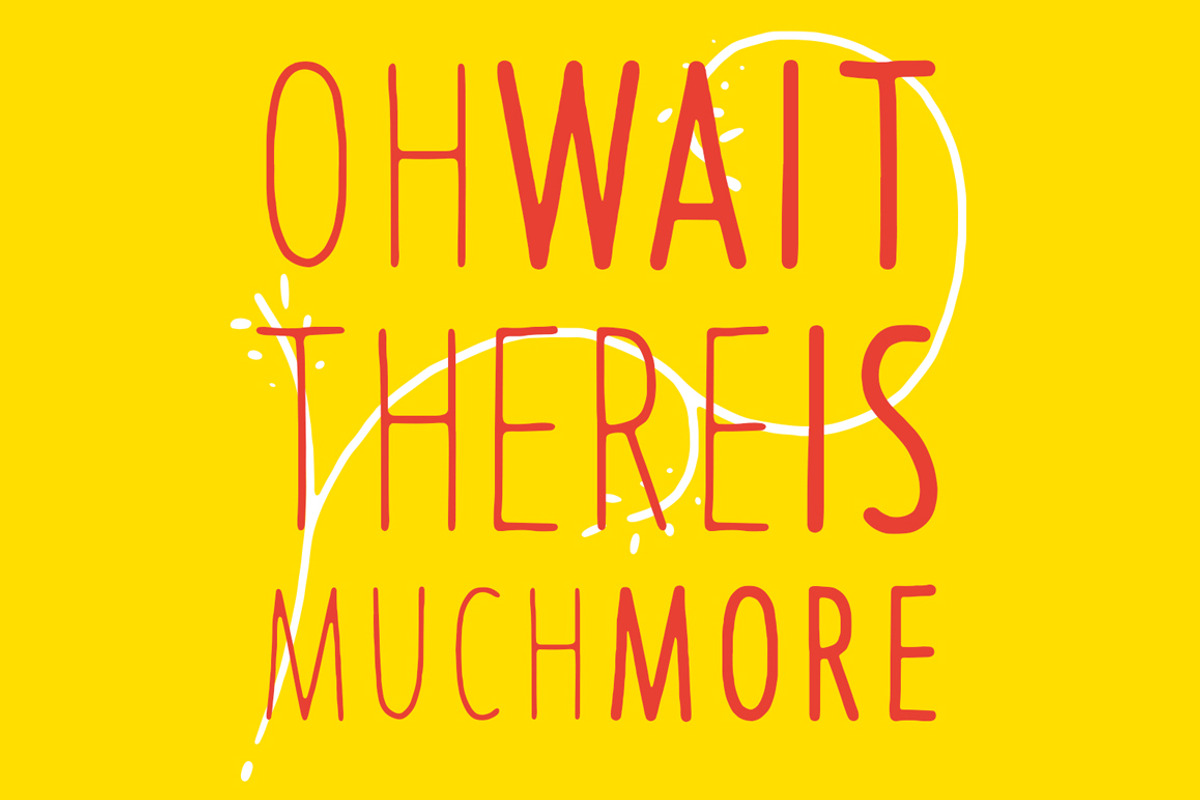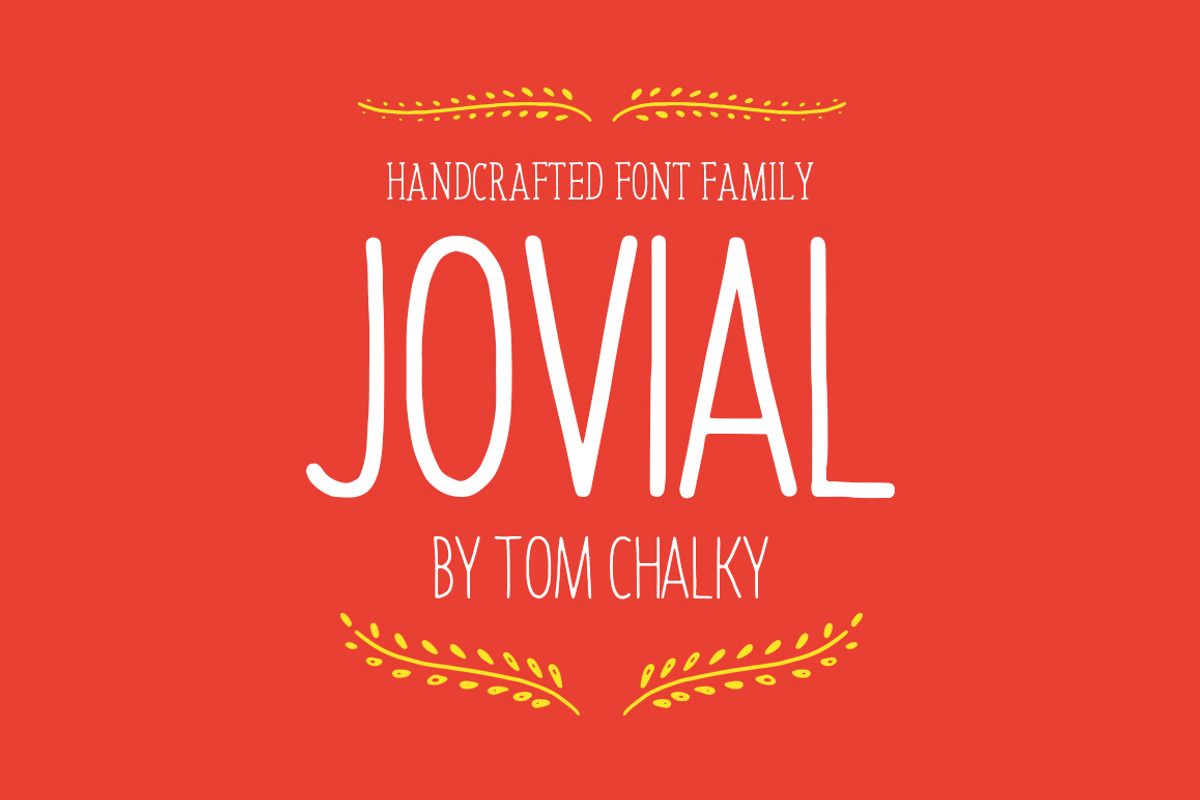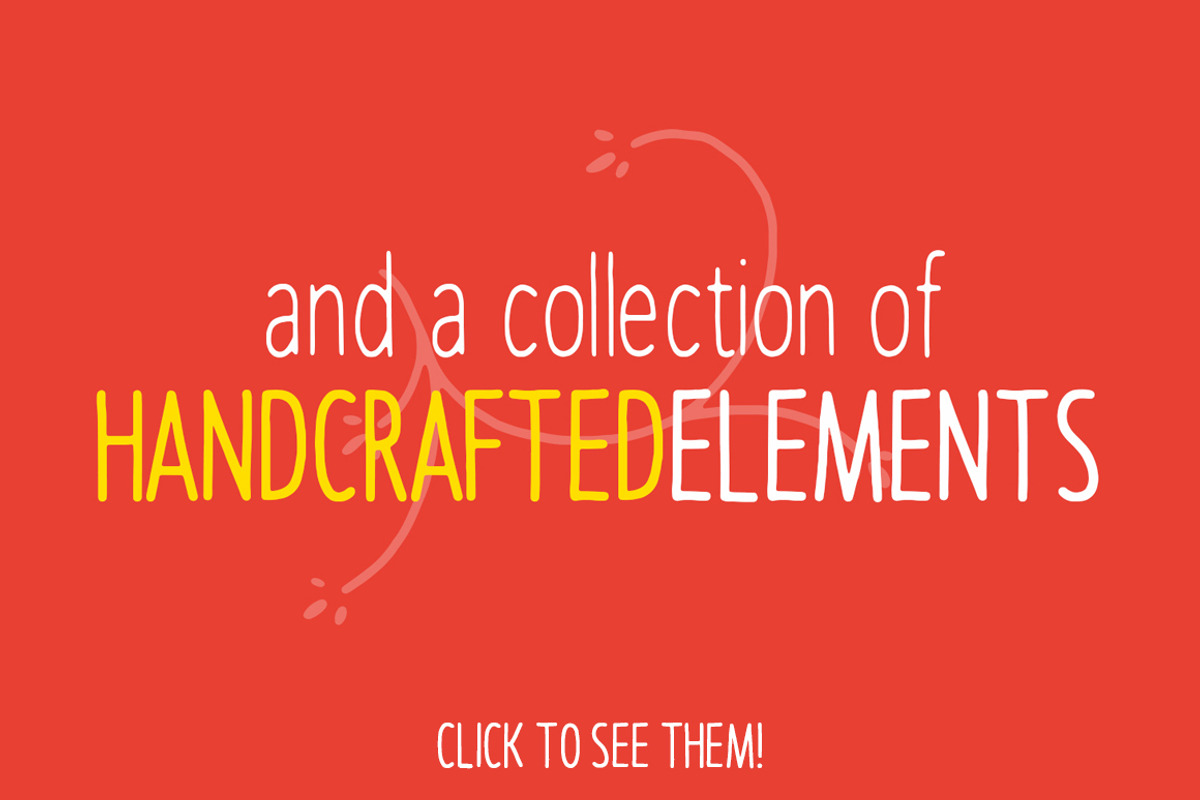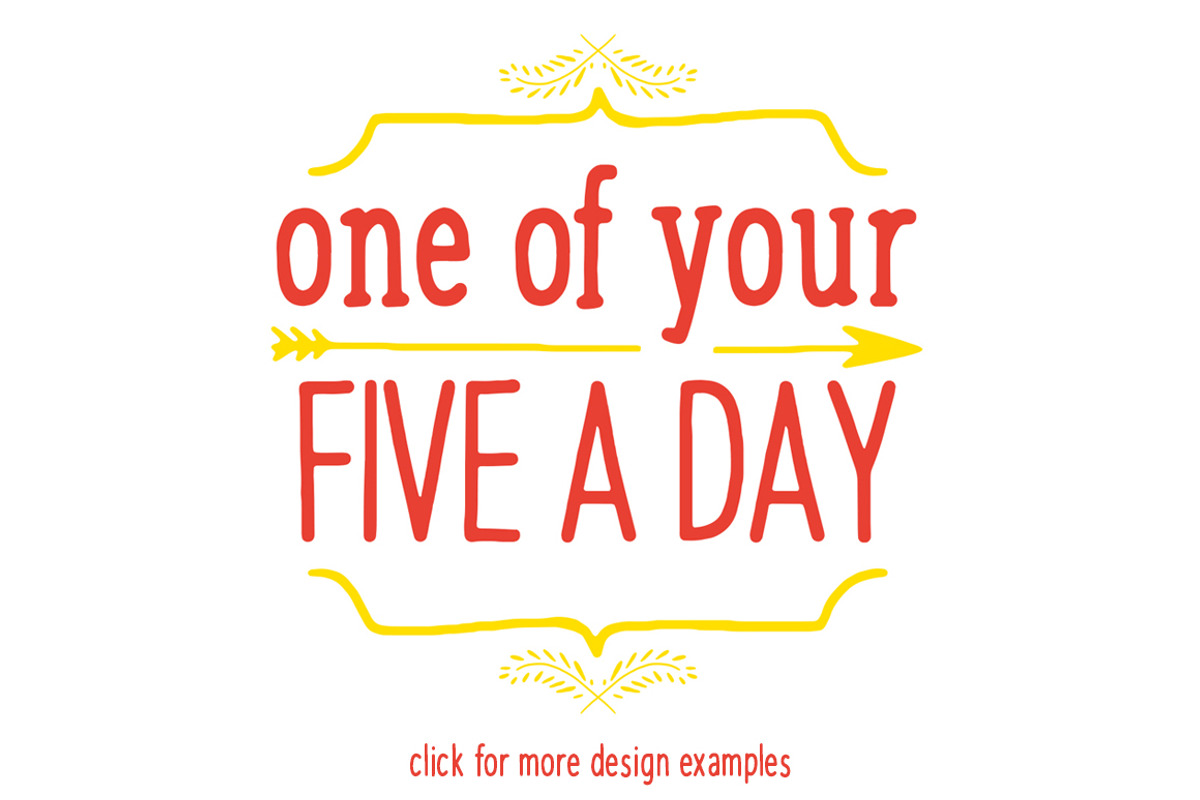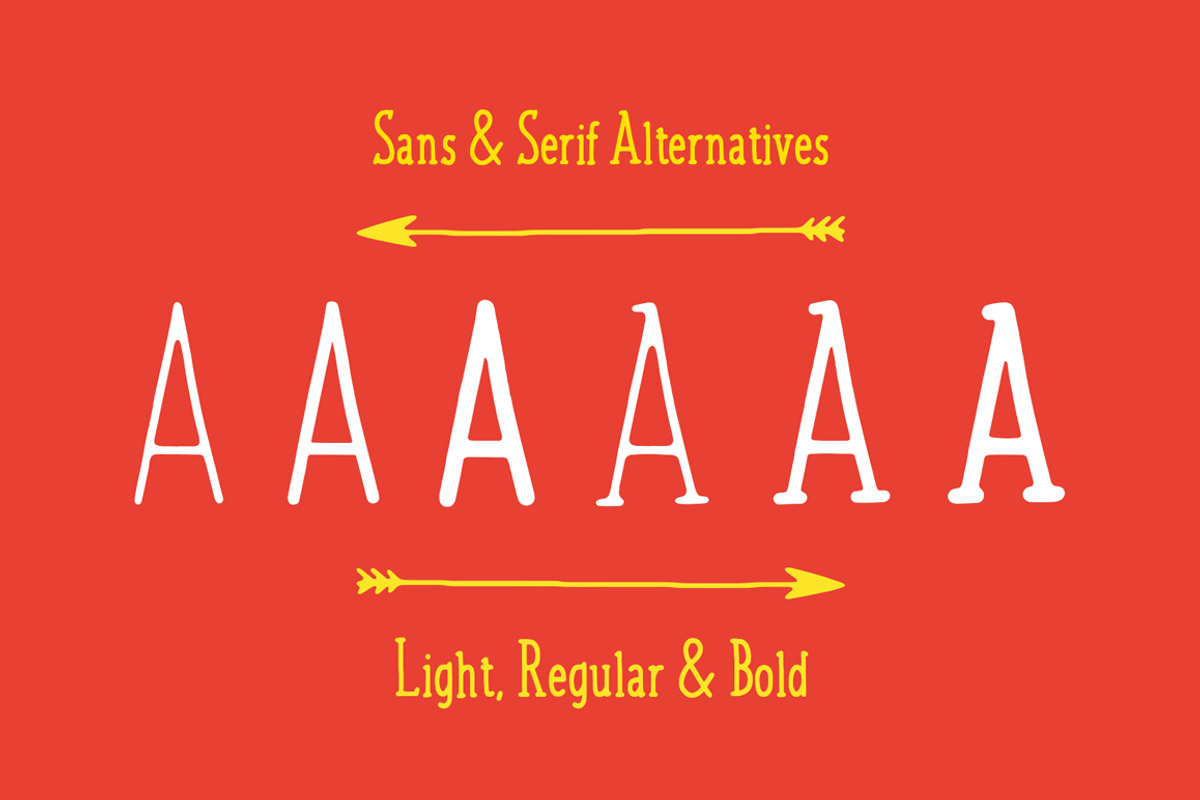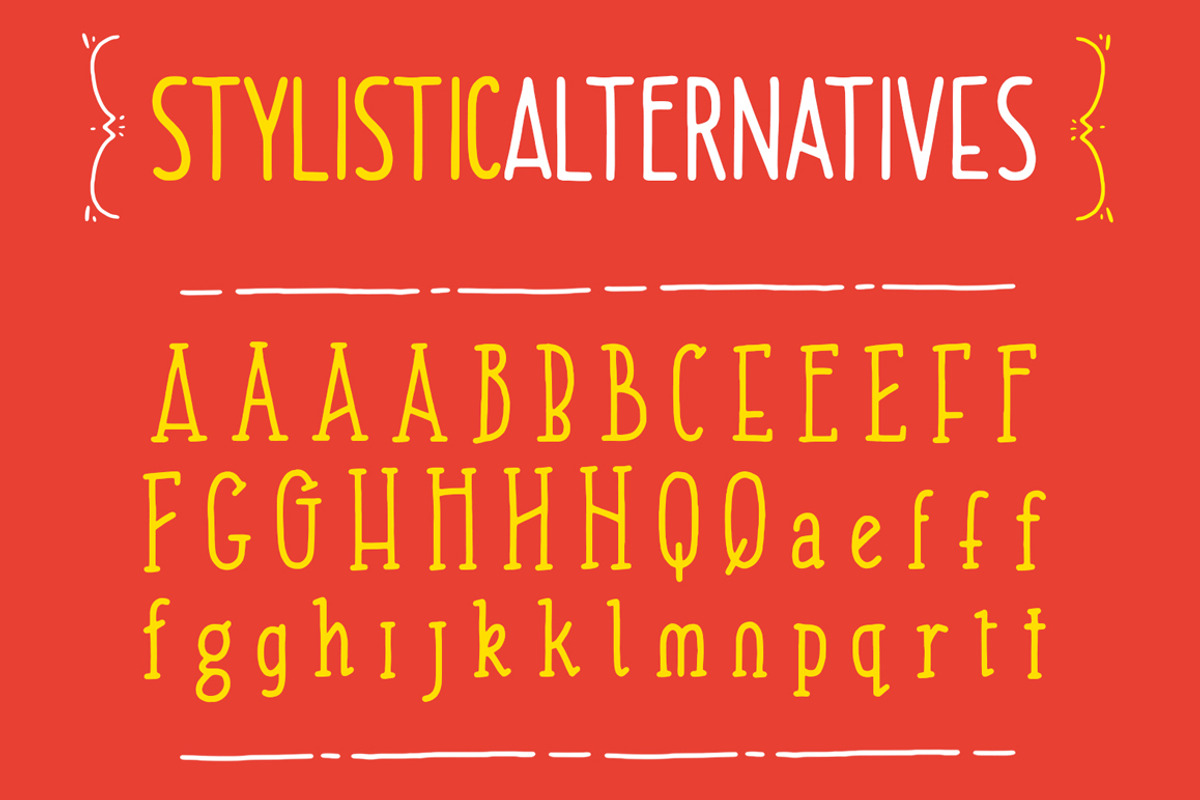
Jovial Font Family + Bonus Elements!
Jovial Font Family + Bonus Elements! by Tom Chalky is a font selected for branding, posters, packaging, typography.
- Jovial Light
- Jovial Regular
- Jovial Bold
- Jovial Sans Light
- Jovial Sans Regular
- Jovial Sans Bold
Jovial Font Family + Bonus Elements! by Tom Chalky fits naturally into Branding, posters, packaging, typography.